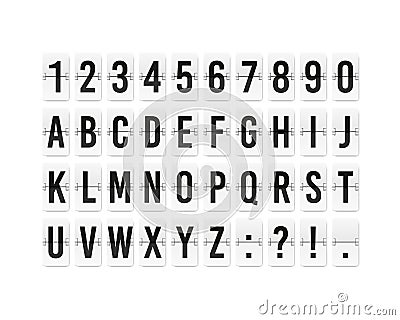
Airport Flip Board Panel. Typography Font Display. Vector Realistic Terminal Mechanical Analog Board.
Airport flip board panel. Typography font display. Vector realistic terminal mechanical analog board